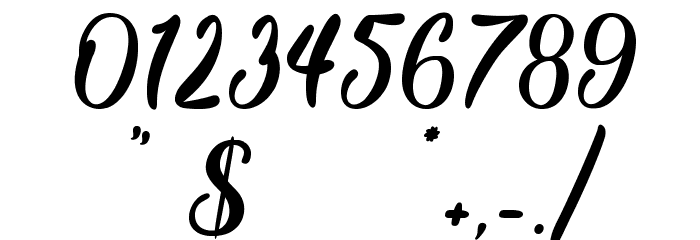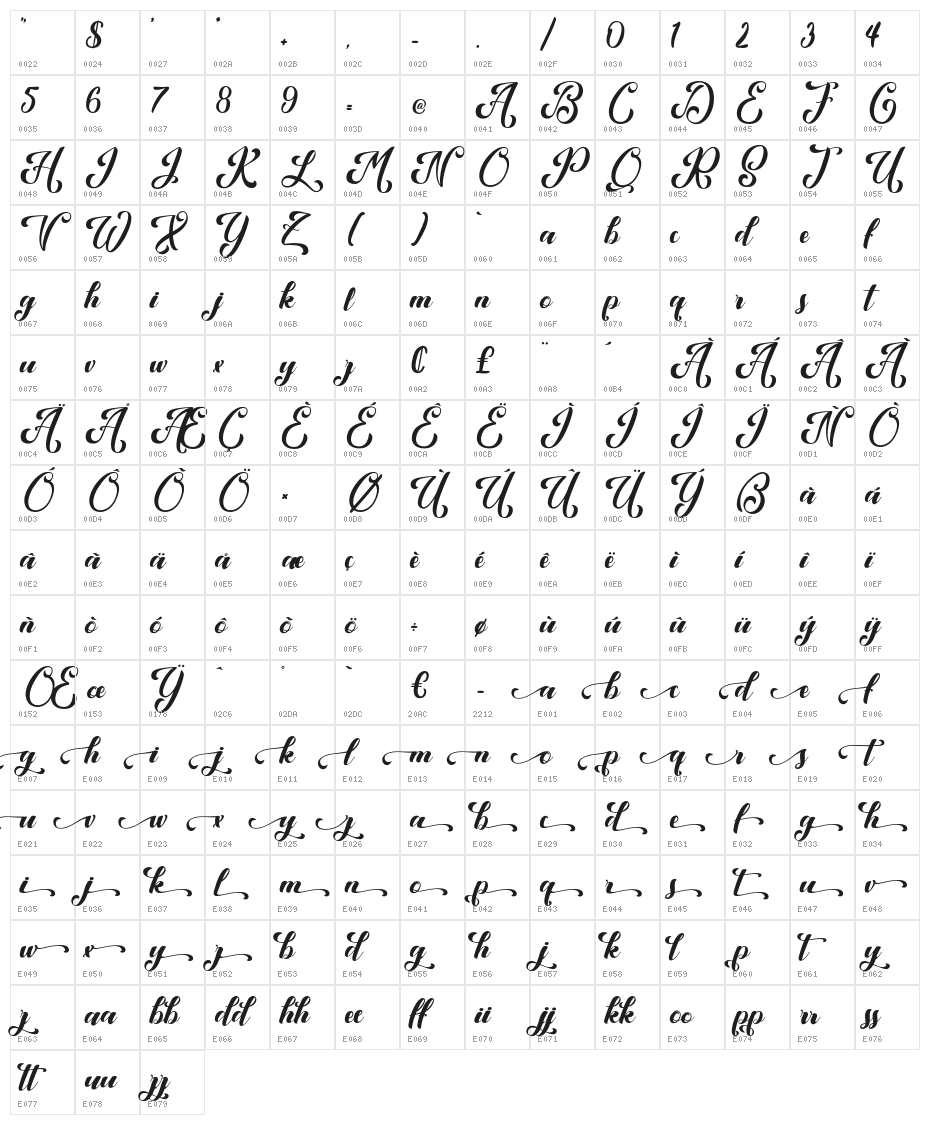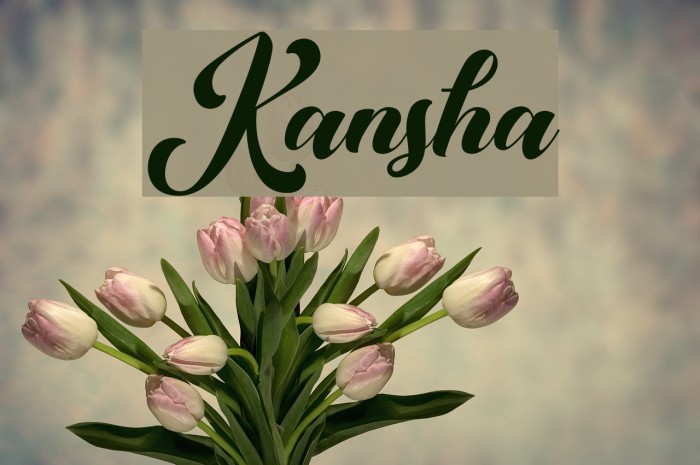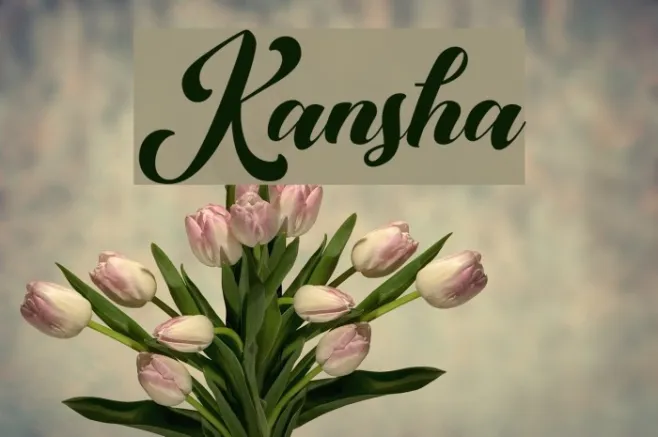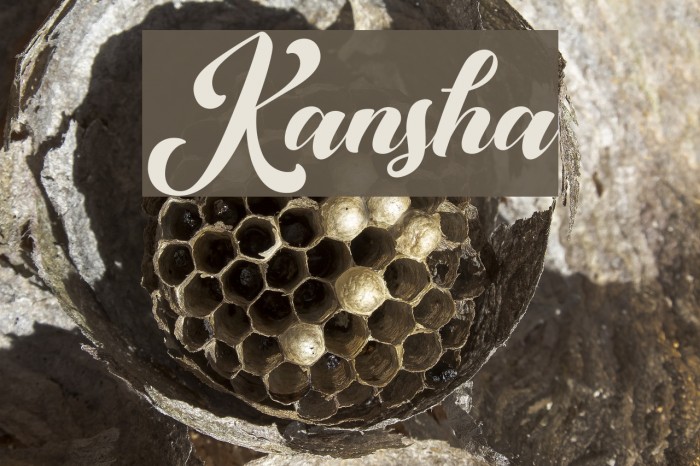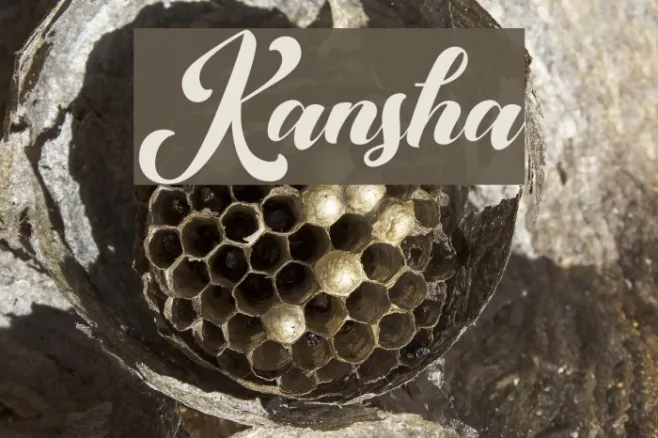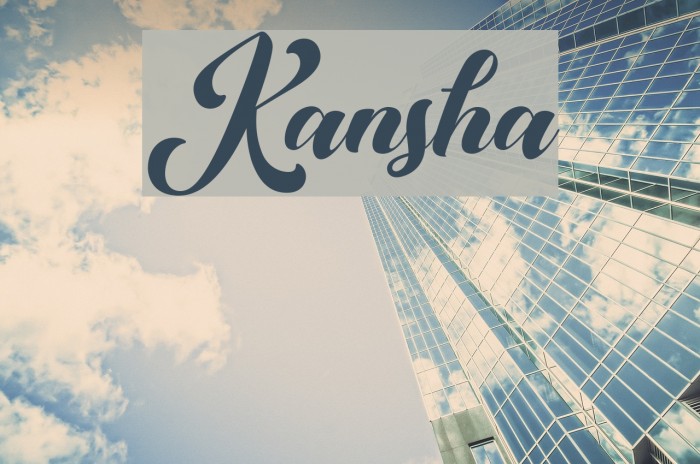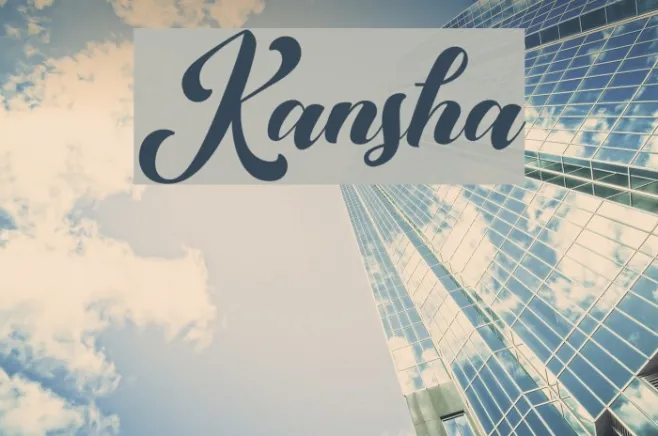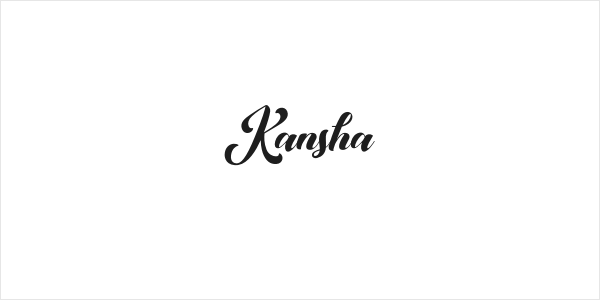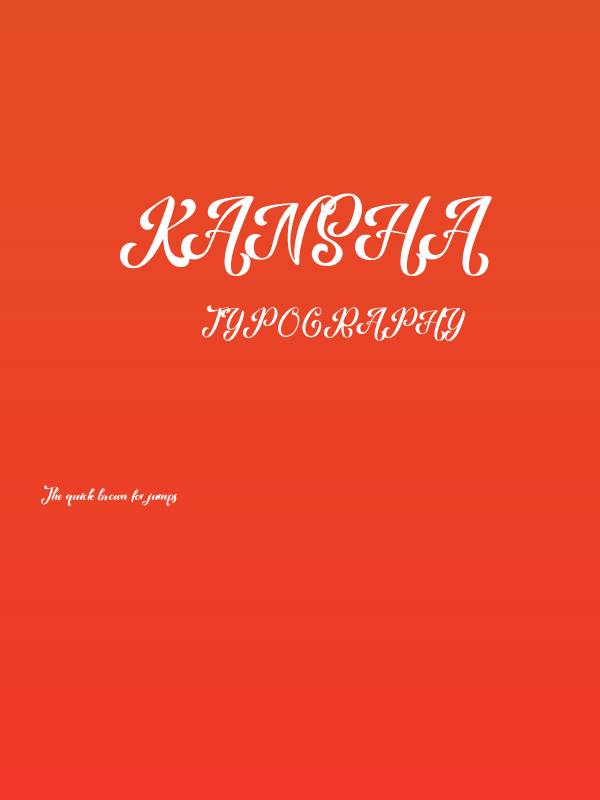
Kansha Font
Kansha Description
This elegant script font features flowing, cursive letterforms with a classic and sophisticated appearance. The uppercase letters are ornate and decorative, while the lowercase letters maintain a smooth and connected style, enhancing readability. The numerals are consistent with the script's overall aesthetic, offering a cohesive look. Special characters are thoughtfully designed to match the font's graceful curves. This font is ideal for projects that require a touch of elegance and formality, such as invitations, branding, and decorative headings.
| Proposed Projects | Ideal for wedding invitations, luxury branding, greeting cards, and decorative headings. |